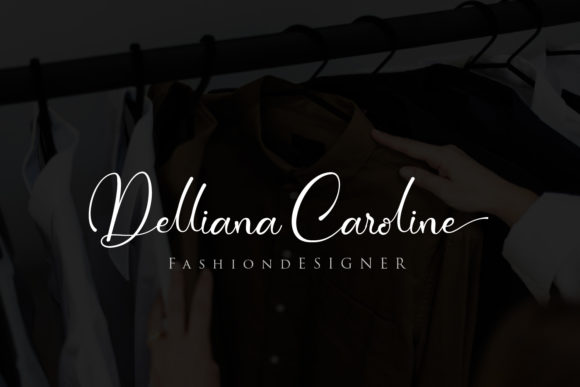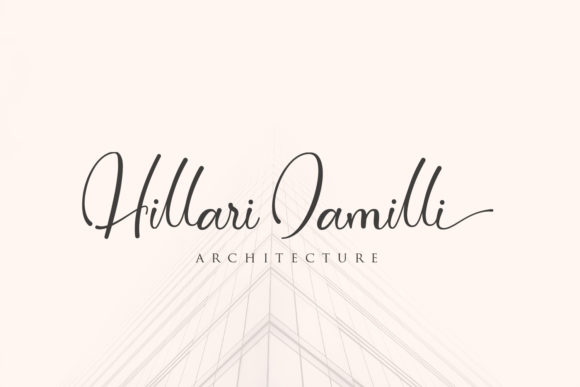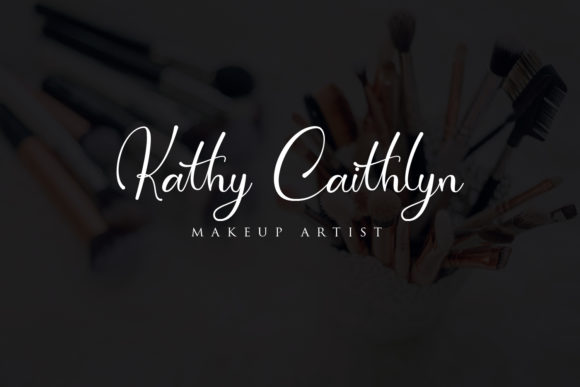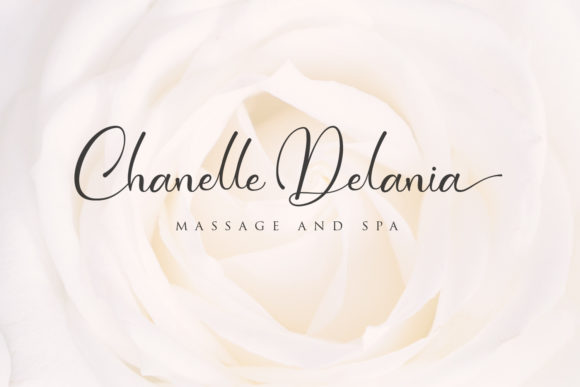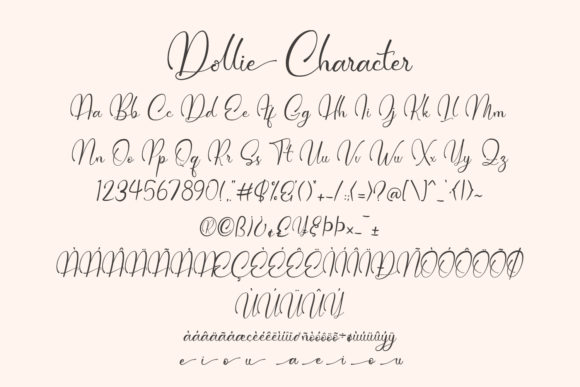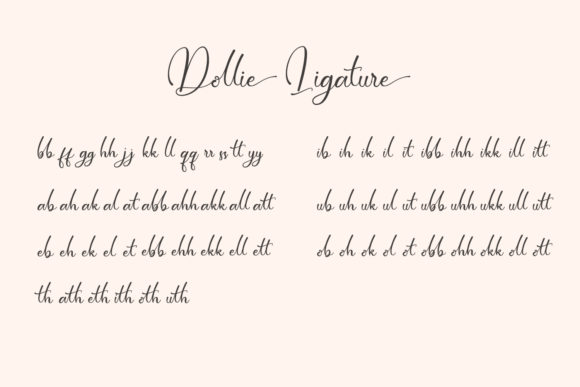
Dollie Font: Elevate Your Designs with Elegance and Sophistication
The Dollie font is an exquisite addition to the world of typography, offering a touch of elegance and sophistication to various design projects. This beautiful script font is perfect for creating stunning logos, branding materials, invitations, wedding designs, social media posts, and more. In this article, we’ll explore the features, benefits, and uses of the Dollie font, making it a must-have for designers and crafters alike.
What is the Dollie Font?
The Dollie font is a carefully crafted script typeface, designed to bring a sense of luxury and refinement to your designs. Its elegant strokes, beautiful ligatures, and flowing connections make it an ideal choice for projects that require a high level of sophistication. The font’s unique characteristics and attention to detail set it apart from other script fonts, making it a standout in the world of typography.
Key Features of the Dollie Font
- Elegant Script Style: The Dollie font boasts a beautiful, flowing script style that’s perfect for creating eye-catching designs.
- Multiple Ligatures: The font features a range of ligatures, which help to create a more natural, connected look.
- High-Quality Design: The Dollie font is designed with precision and attention to detail, ensuring a high level of quality and consistency.
- Versatile: This font is suitable for a wide range of design projects, from logos and branding to invitations and social media posts.
Benefits of Using the Dollie Font
The Dollie font offers numerous benefits to designers and crafters, including:
- Instant Elegance: Add a touch of sophistication and elegance to your designs with this beautiful script font.
- Unique Designs: The font’s distinctive style and features help you create unique and eye-catching designs that stand out from the crowd.
- Professional Results: Achieve professional-looking results with the Dollie font, even if you’re not an experienced designer.
Use Cases for the Dollie Font
The Dollie font is an incredibly versatile typeface, suitable for a wide range of design projects, including:
- Logos and Branding: Create stunning logos and branding materials that exude elegance and sophistication.
- Invitations and Wedding Designs: Add a touch of luxury and refinement to your invitations, wedding cards, and other stationery.
- Social Media Posts: Elevate your social media posts with beautiful, eye-catching typography.
- Packaging and Product Design: Use the Dollie font to create stunning packaging and product designs that stand out on store shelves.
Tips for Using the Dollie Font
To get the most out of the Dollie font, follow these tips:
- Experiment with Font Sizes: Play around with different font sizes to create visual interest and hierarchy in your designs.
- Pair with Complementary Fonts: Combine the Dollie font with complementary fonts to create a unique and harmonious design.
- Pay Attention to Kerning: Adjust the kerning to ensure the font looks natural and visually appealing.
The Dollie font is an exceptional addition to any designer’s toolkit, offering a unique blend of elegance, sophistication, and versatility. With its beautiful script style, multiple ligatures, and high-quality design, this font is perfect for a wide range of design projects. Whether you’re a seasoned designer or a crafter, the Dollie font is sure to elevate your designs and help you achieve professional-looking results.